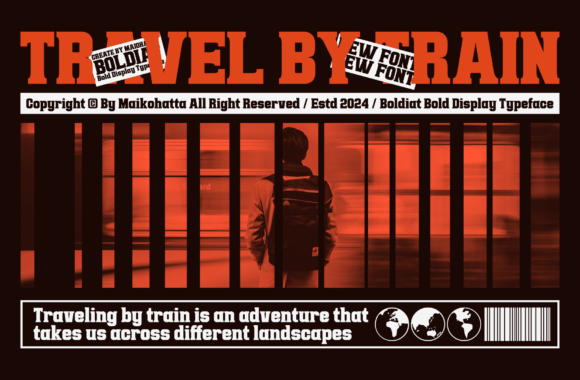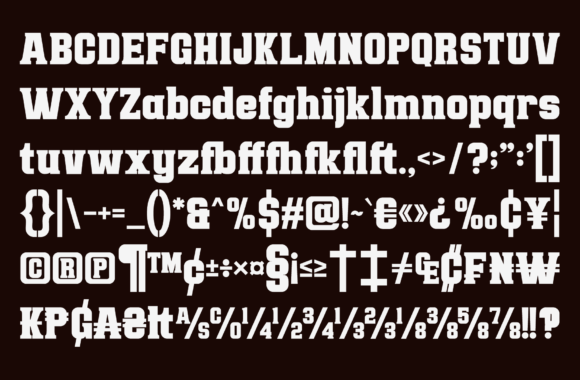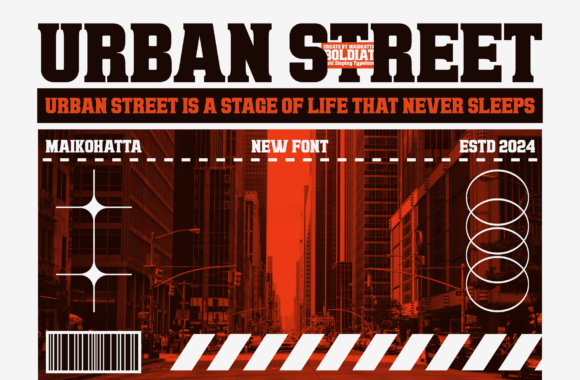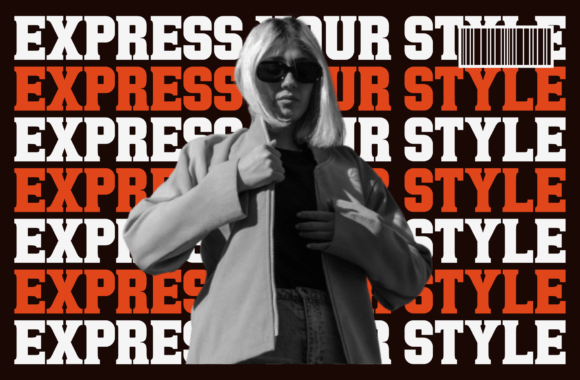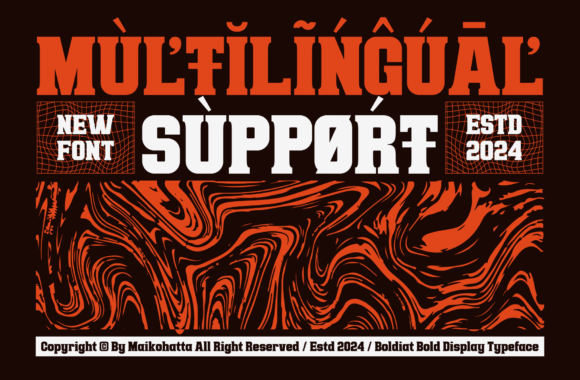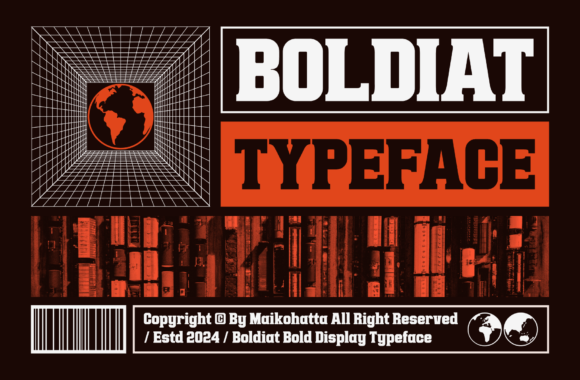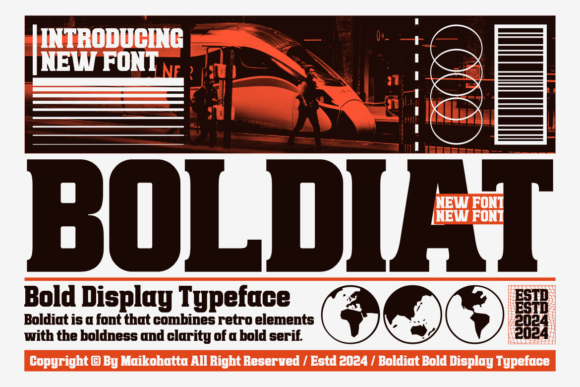
Introducing Boldiat: The Ultimate Bold Display Typeface
In the world of typography, fonts play a crucial role in conveying messages, expressing creativity, and enhancing the overall aesthetic appeal of a design. For designers, crafters, and typography enthusiasts, finding the perfect font can be a daunting task. However, we’re excited to introduce our latest addition to the world of typography: Boldiat – a bold display typeface that’s sure to take your designs to the next level.
What is Boldiat?
Boldiat is a stunning bold display typeface that features a series of small or decorative projections called serifs at the ends of its characters. These serifs provide a more formal, classic, and easy-to-read appearance to printed text, making it perfect for designs that require a touch of sophistication and elegance.
The Power of Serif Fonts
Serif fonts, like Boldiat, have been a staple in the world of typography for centuries. They are often used in formal documents, books, and print publications because of their good legibility in small text sizes. The serifs help guide the eye along the text, making it easier to read, even in dense blocks of text. This is especially important for designers and crafters who work with printed materials, such as business cards, brochures, and posters.
Key Features of Boldiat
So, what sets Boldiat apart from other bold display typefaces? Here are some of its key features:
- Unique Serif Design: Boldiat’s serifs are carefully crafted to provide a classic and sophisticated look, while also ensuring excellent legibility.
- Bold and Eye-Catching: With its bold design, Boldiat is perfect for headlines, titles, and other display text that needs to grab attention.
- Highly Versatile: Boldiat can be used in a wide range of design applications, from print materials to digital designs.
- Easy to Read: Despite its bold design, Boldiat remains easy to read, even in small text sizes.
Why Choose Boldiat?
With so many fonts available, why choose Boldiat? Here are just a few reasons:
- Stand Out from the Crowd: Boldiat’s unique serif design and bold style ensure that your designs will stand out from the crowd.
- Perfect for Formal Designs: Whether you’re working on a formal document, a luxury brand, or a high-end product, Boldiat is the perfect choice.
- Easy to Pair with Other Fonts: Boldiat’s classic design makes it easy to pair with other fonts, ensuring a cohesive look and feel.
How to Use Boldiat
Now that you’ve fallen in love with Boldiat, here are some tips on how to use it effectively:
- Use it as a Headline Font: Boldiat is perfect for headlines, titles, and other display text that needs to grab attention.
- Pair it with a Sans-Serif Font: Pair Boldiat with a sans-serif font for a classic and modern look.
- Experiment with Different Sizes: Don’t be afraid to experiment with different font sizes to create visual interest and hierarchy.
In conclusion, Boldiat is a stunning bold display typeface that’s perfect for designers, crafters, and typography enthusiasts. With its unique serif design, bold style, and excellent legibility, Boldiat is sure to take your designs to the next level. Whether you’re working on a formal document, a luxury brand, or a high-end product, Boldiat is the perfect choice. So why wait? Download Boldiat today and experience the power of bold typography!